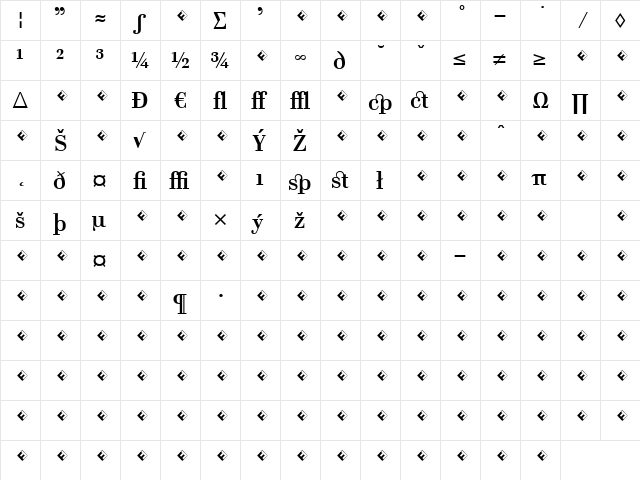
Cellini-BoldExpert Regular
| Foundry | Albert Boton, published by FontShop International for the FontFont Library |
| Designer | Albert Boton |
Design Context for Cellini-BoldExpert Typeface
Cellini-BoldExpert takes a measured approach to typography — its balanced proportions and neutral character make it a reliable workhorse for both digital and print work. The heavy weight commands attention and anchors typographic hierarchies.